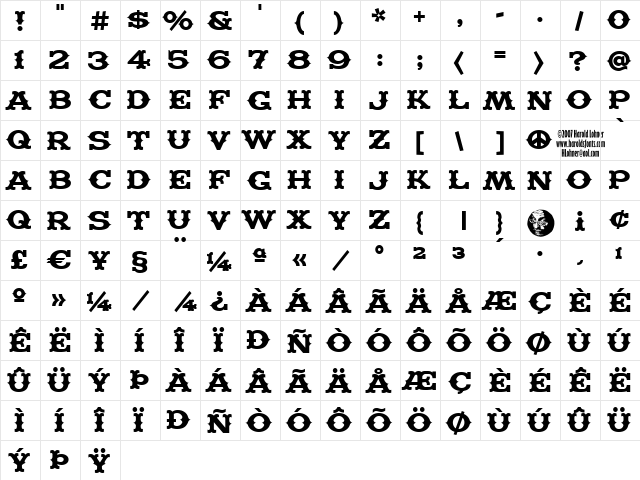
MadfontThorns Regular
Design Context for MadfontThorns Typeface
MadfontThorns is a composed and adaptable typeface that performs quietly and consistently across a wide range of design contexts.